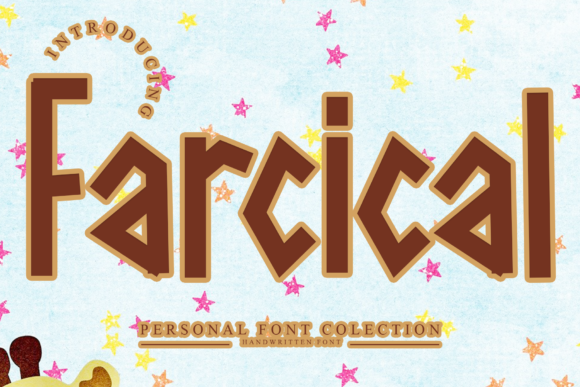
Farcical Font: The Quirky Game-Changer for Designers
Have you ever stared at a blank page, frantically searching for the perfect font to bring your creative vision to life? That’s where I was a few weeks ago, trying to design a campaign for a quirky new restaurant. I needed a font that would capture the whimsical essence of the place, something that would make people laugh and smile. And then, I stumbled upon the Farcical Font.
This fun and quirky display font is a designer’s dream come true. With its playful strokes and eccentric characters, Farcical Font is the perfect tool to add a touch of humor and personality to your designs. Whether you’re creating a social media campaign, a logo, or a poster, Farcical Font is sure to make your ideas stand out from the crowd.
What sets Farcical Font apart is its versatility and value for designers. It’s not just a font – it’s a conversation starter, a mood-setter, and a way to connect with your audience on a deeper level. With Farcical Font, you can create spectacular designs that are both visually striking and emotionally resonant.
Farcical Font Key Features
- Font Family: Farcical Font is a sans-serif font family designed for use in digital and print media.
- Character Set: Includes over 1,000 glyphs, covering multiple languages and scripts, including Latin, Cyrillic, and Greek alphabets.
- Unique Characteristics: Farcical Font features a unique blend of modern and vintage design elements, with a focus on readability and versatility.
Farcical Font Review
Overall, I’m quite impressed with the Farcical Font. It’s a quirky, whimsical font that can add a lot of personality to any design project. ✨
- The font’s irregular shape and bold lines make it perfect for adding a touch of humor or satire to a design.
- The many font weights and styles offer a lot of versatility, allowing designers to customize the font to suit their needs.
- The font is also highly legible, even at smaller font sizes, making it suitable for body text or headlines.
- The font may not be suitable for formal or professional projects, as its playful nature may come across as unprofessional.
- The many font weights and styles can also make it overwhelming to choose the right one for a design project.
- The font’s irregular shape may not be suitable for designs where precision and consistency are crucial.
- ⚠️ There is also a lack of italics or obliques in the font family.
Overall, I think the Farcical Font is a great addition to any designer’s toolkit, but it’s essential to use it thoughtfully and consider its limitations.
The Farcical Font is perfect for:
- Creating humorous posters and flyers.
- Designing whimsical greeting cards and invitations.
- Adding a touch of personality to social media graphics and blog posts.